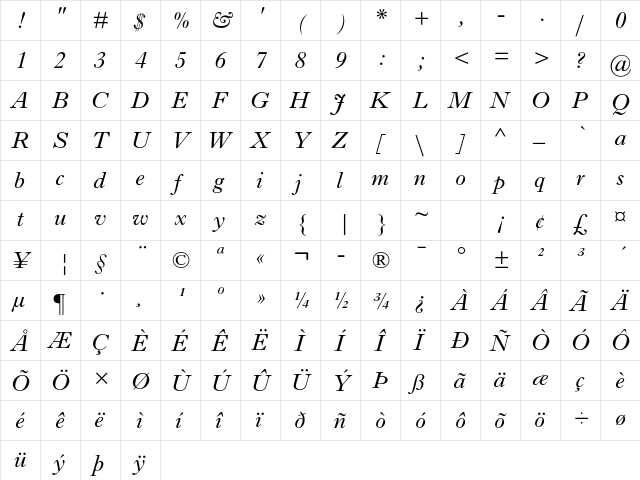
Imprint MT Std Italic Font Preview
Imprint MT Std Italic
Imprint MT Std Italic Font Details
Design Context for Imprint MT Std Typeface
Imprint MT Std takes a measured approach to typography — its balanced proportions and neutral character make it a reliable workhorse for both digital and print work. The dynamic lean of this cut emphasises speed and emphasis in any layout.
Pro Tip: Use Imprint MT Std for emphasis, pull quotes, and subheadings where its slanted energy can add rhythm to the layout.